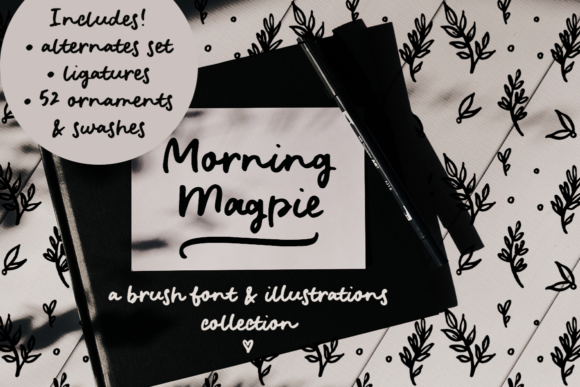
Morning Magpie Font
Welcome to the world of Morning Magpie, a font that effortlessly captures the beauty and elegance of cursive handwriting.
Immerse yourself in its intricate strokes and flowing lines, designed to bring a touch of warmth and personality to your creative projects. Morning Magpie is not just a font; it's an invitation to express yourself with heartfelt charm.
Picture the joy of crafting invitations that whisper with heartfelt sincerity. Your thank-you cards will radiate gratitude, carrying your words with a grace that touches the soul. Quotes and greetings will find their perfect voice, speaking volumes with every letter.
Logos and business cards will exude a touch of sophistication, leaving a lasting impression that echoes your brand's unique character. From wedding vows to heartfelt letters, Morning Magpie transforms the ordinary into the extraordinary, adding a touch of magic to every creation.
With Morning Magpie, you'll discover the joy of creating designs that resonate with emotion and authenticity. Its versatility knows no bounds, making it the perfect choice for a wide range of projects.
Whether you're a seasoned designer or just starting your creative journey, Morning Magpie empowers you to express yourself with a touch of elegance and heartfelt charm.
Embrace the beauty of handwritten fonts and let Morning Magpie guide your creative vision towards a world of heartfelt expression.